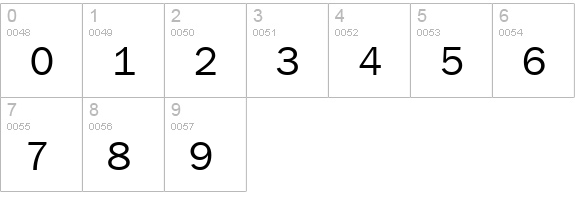
00250 font is a stylish and versatile typeface that is perfect for a wide range of design projects. Its clean lines and modern aesthetic make it ideal for both digital and print applications. Whether you're creating a logo, website, or promotional materials, 00250 font will add a touch of sophistication to your work. The best part is that 00250 font is completely free to download at FontsMarket.com. This means you can easily access this high-quality font without any cost, making it a valuable resource for designers and creatives alike. Don't miss out on the opportunity to enhance your projects with the elegant and professional look of 00250 font. Download it today and take your designs to the next level!